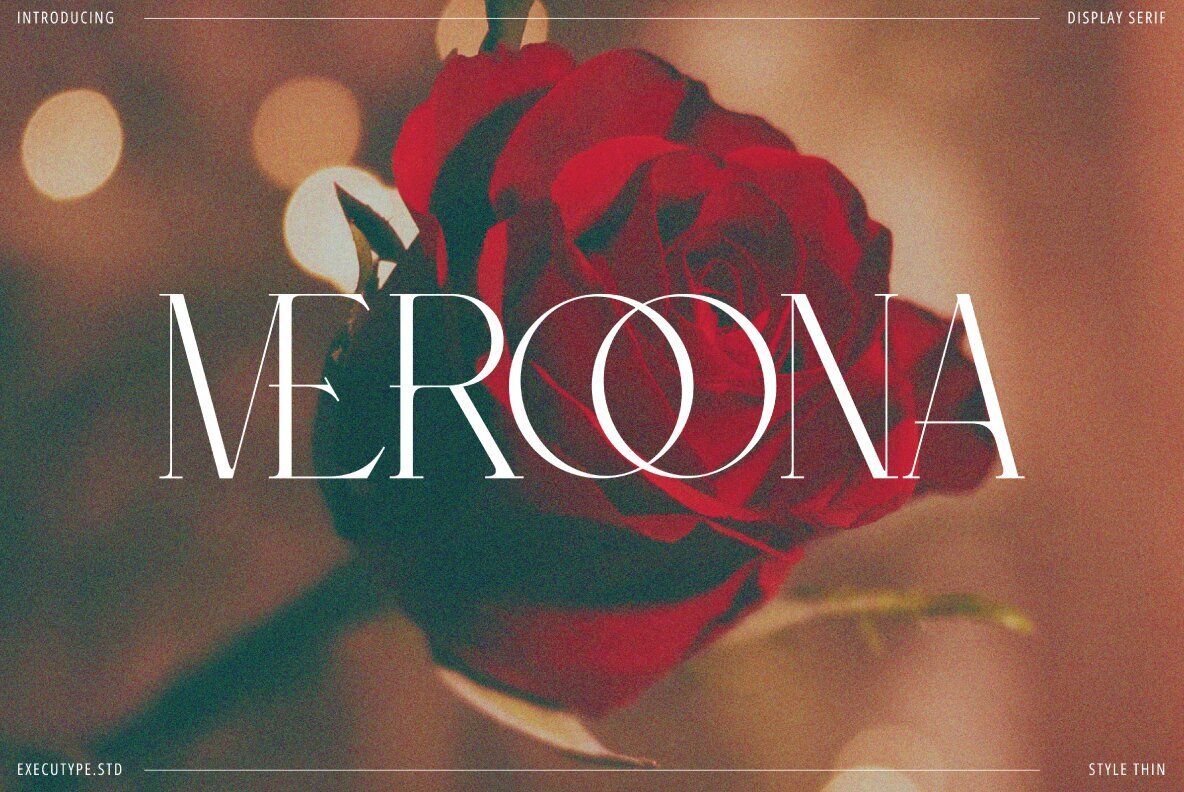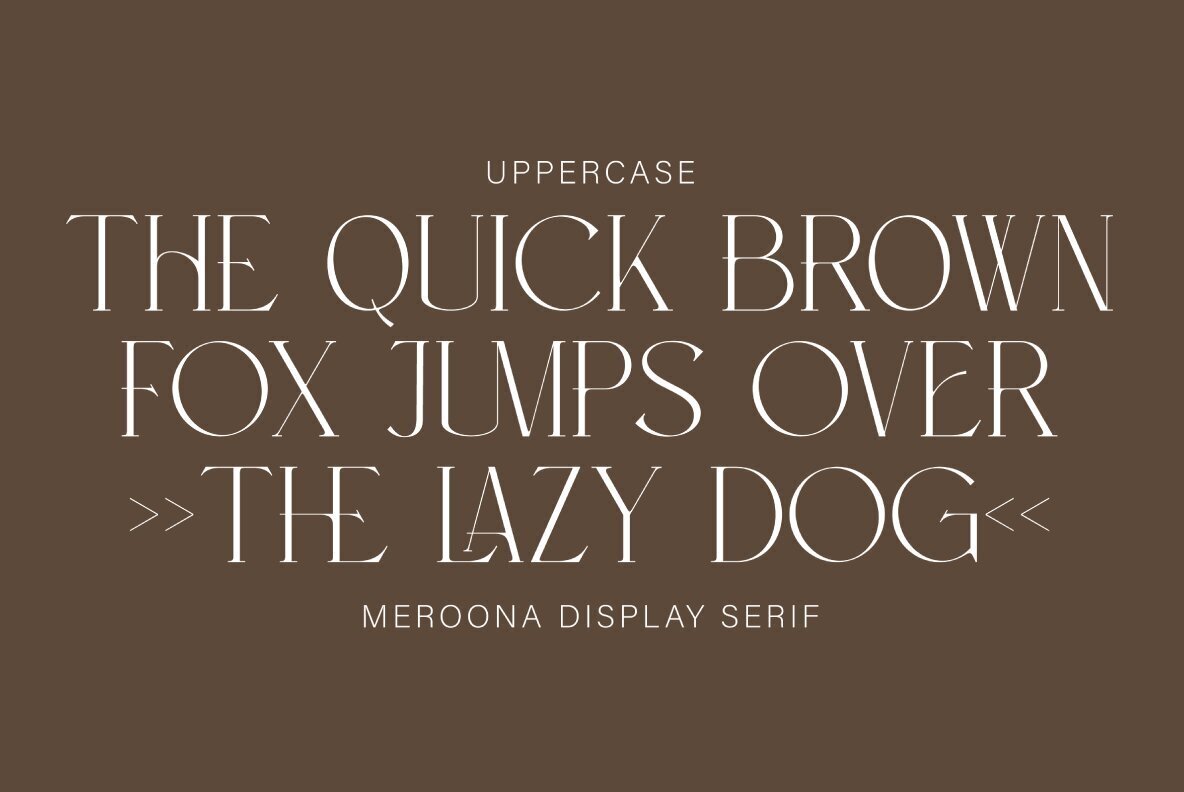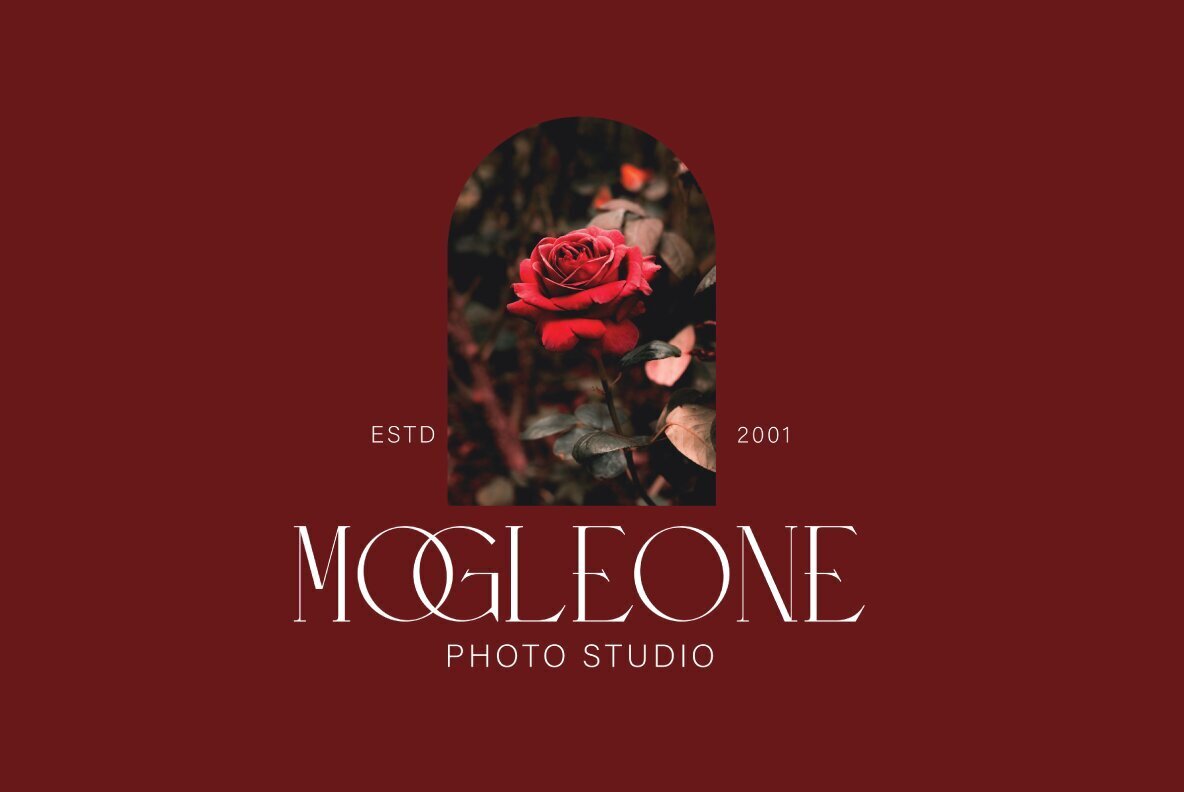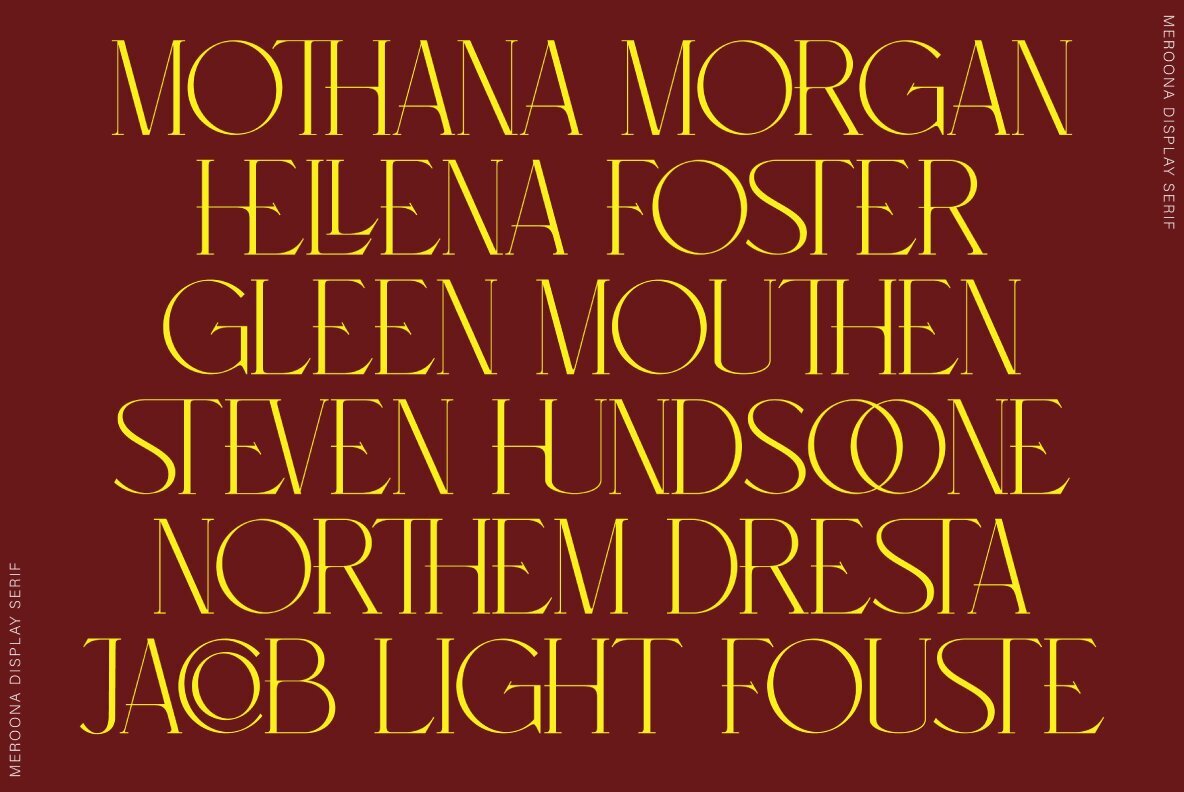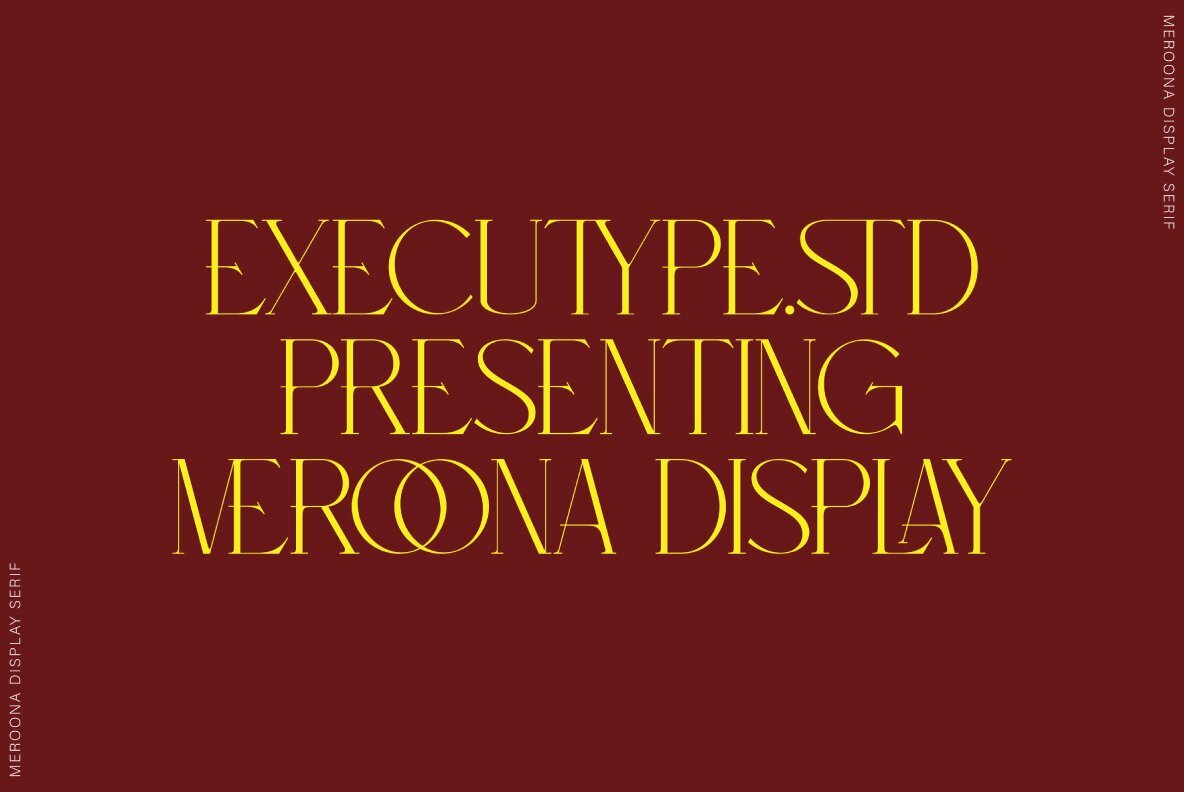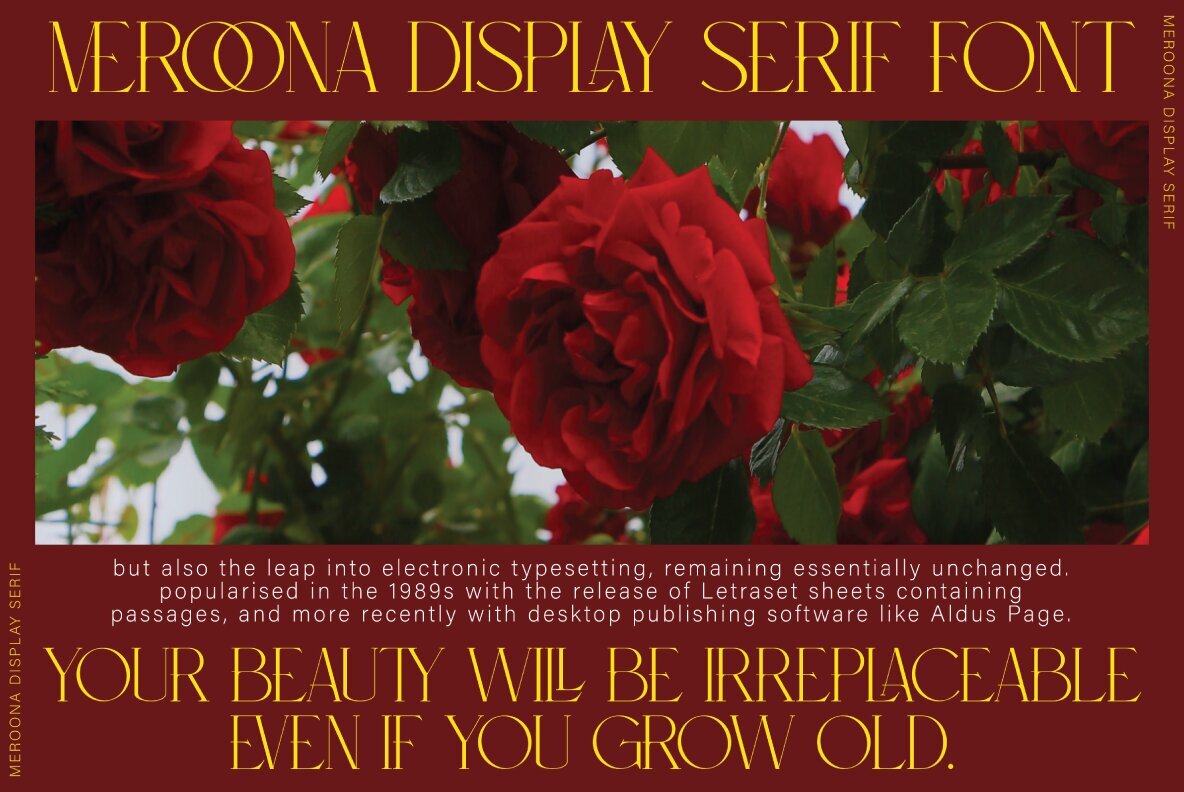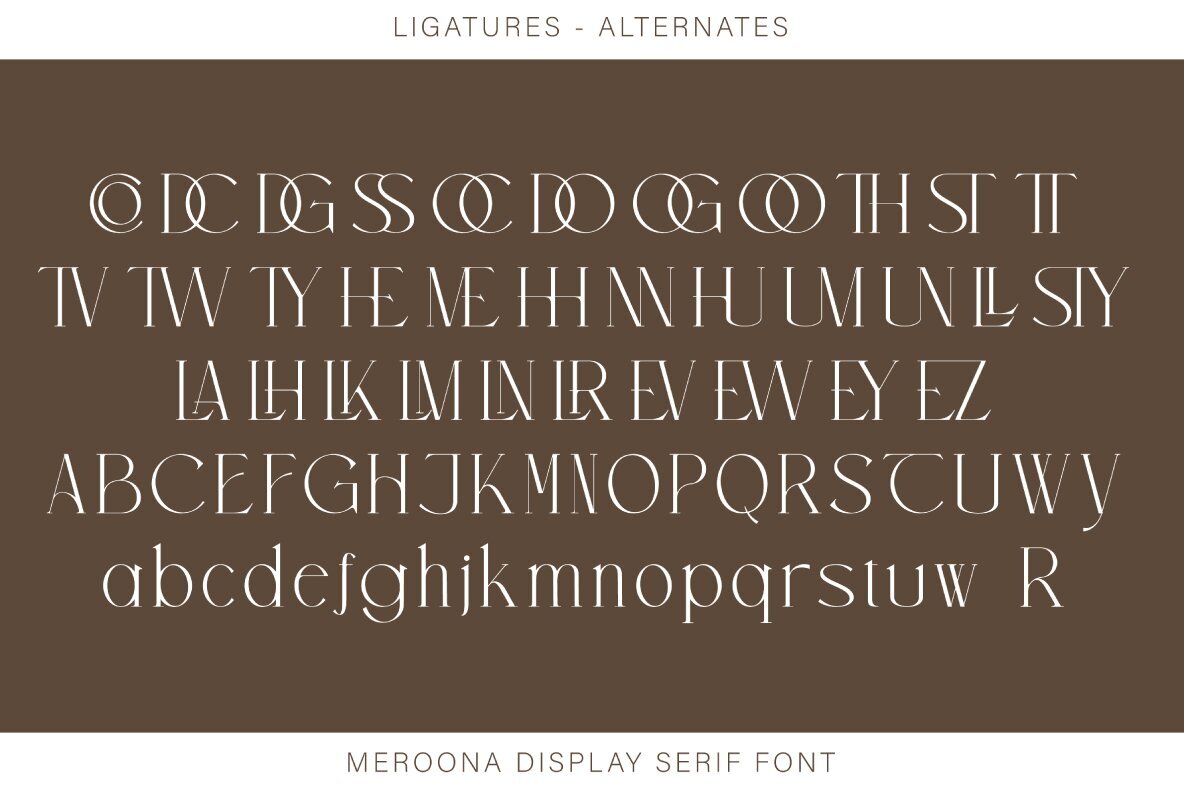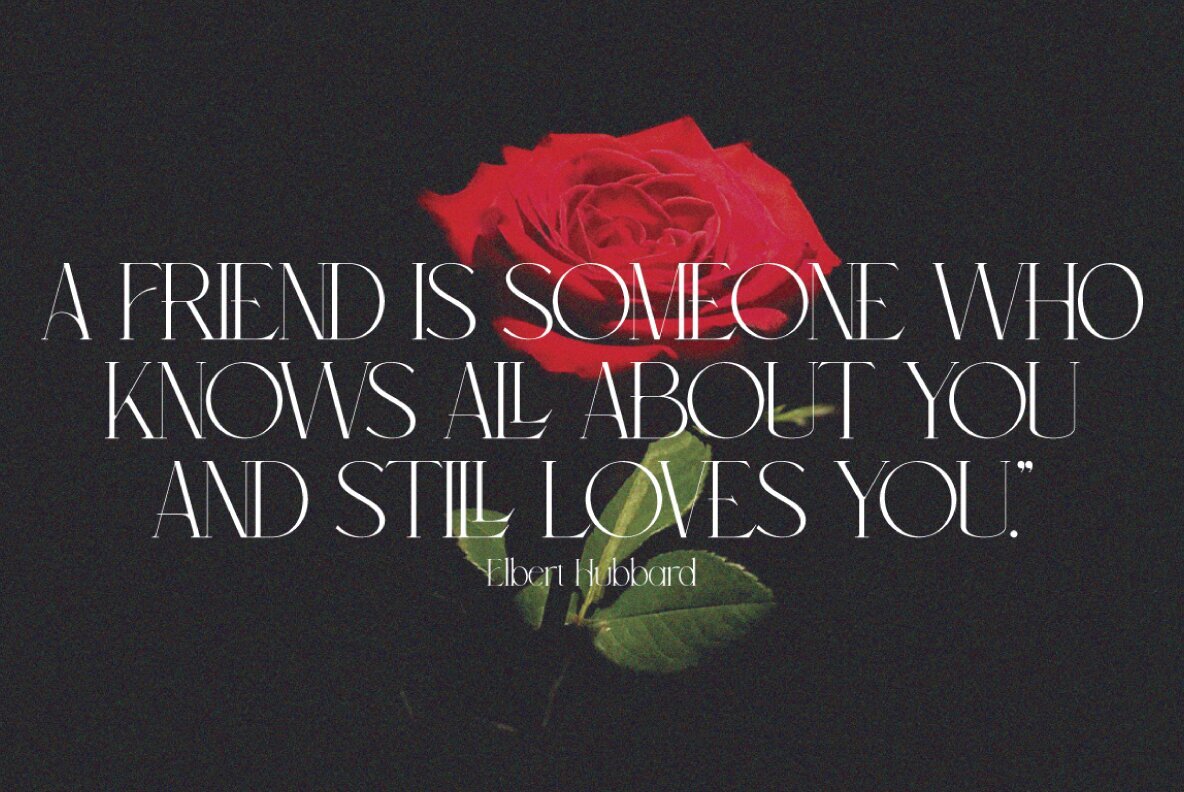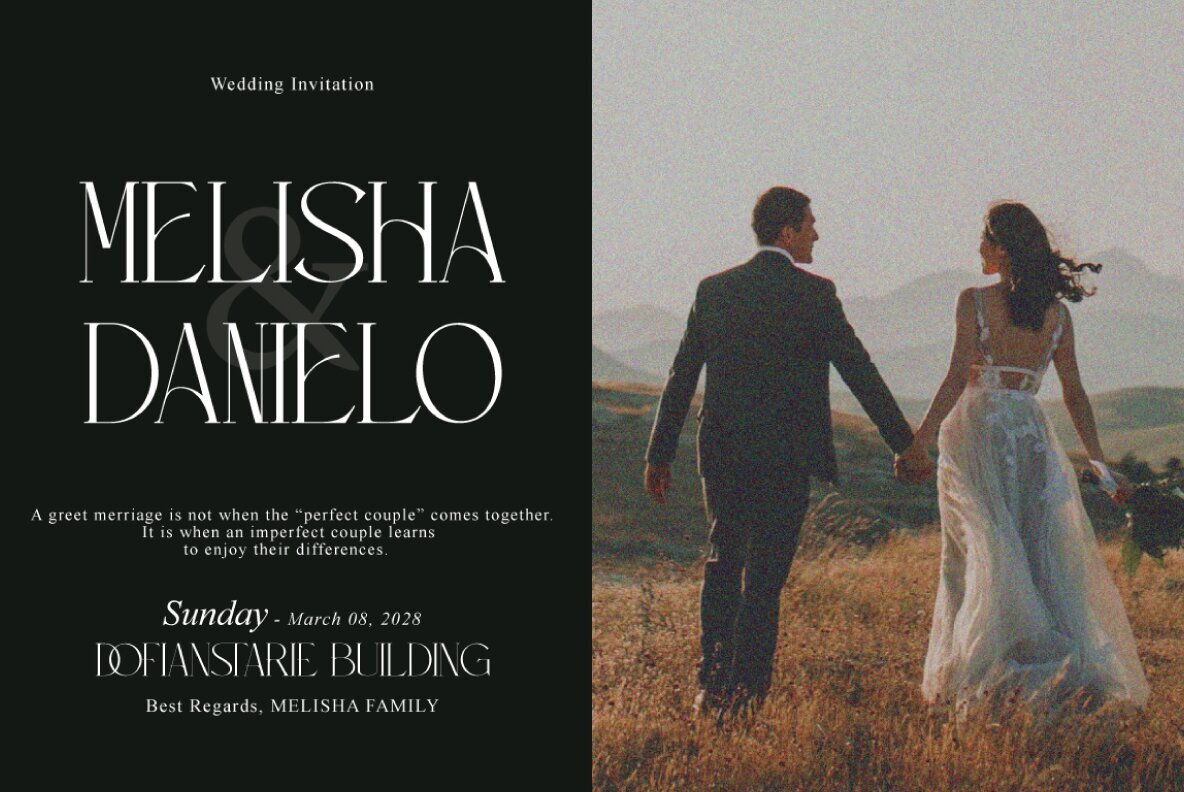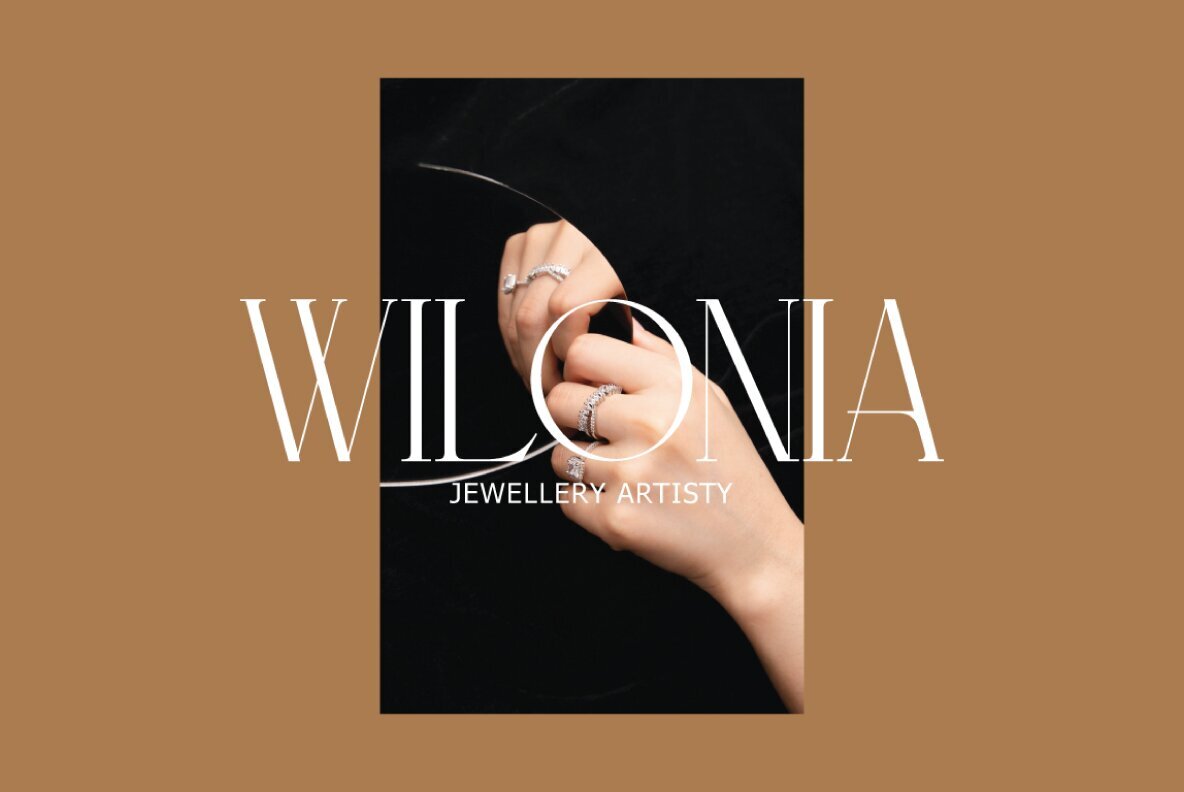
Meroona Font
Meroona Display Serif
Discover Meroona, the captivating display serif from Executype Studio that blends fresh modernity with a bold, distinctive style. Its dancing baseline adds a touch of elegance to invitations, greeting cards, branding materials, business cards, quotes, and posters. Ideal for both display sizes and text readability, Meroona's sharp triangular serifs and unique letter shapes enhance logo designs and editorial applications.Meroona Display Serif: A Modern Typeface